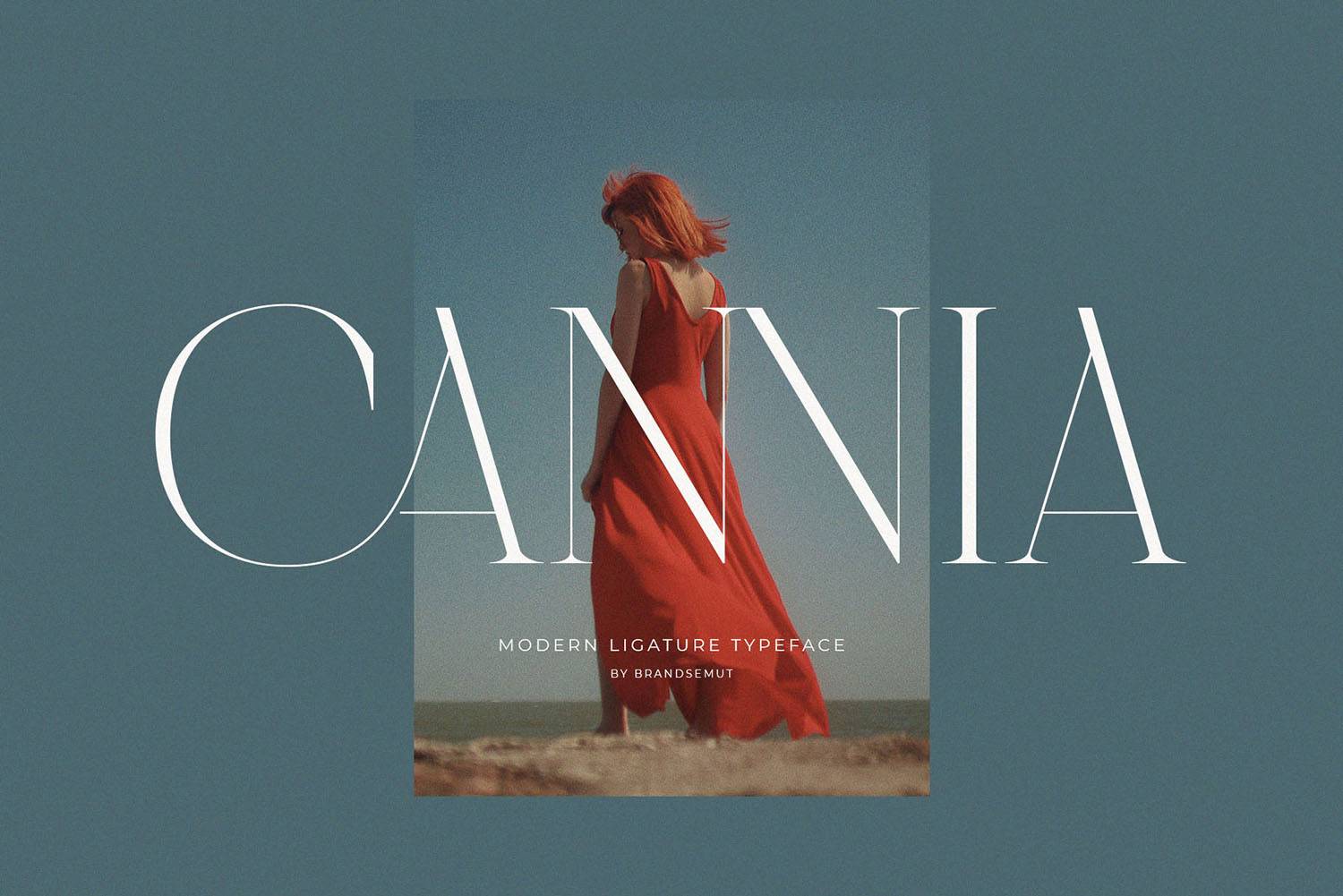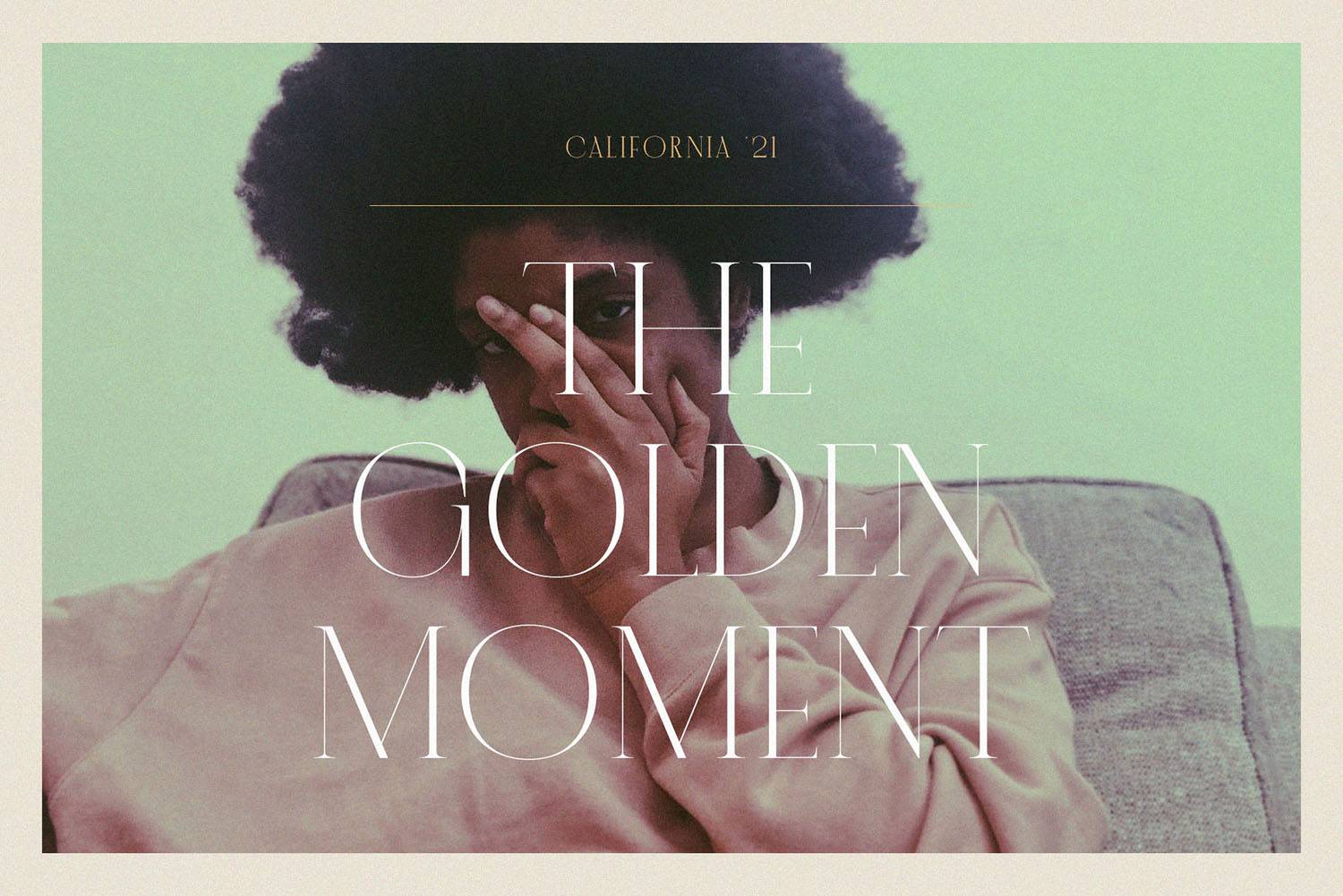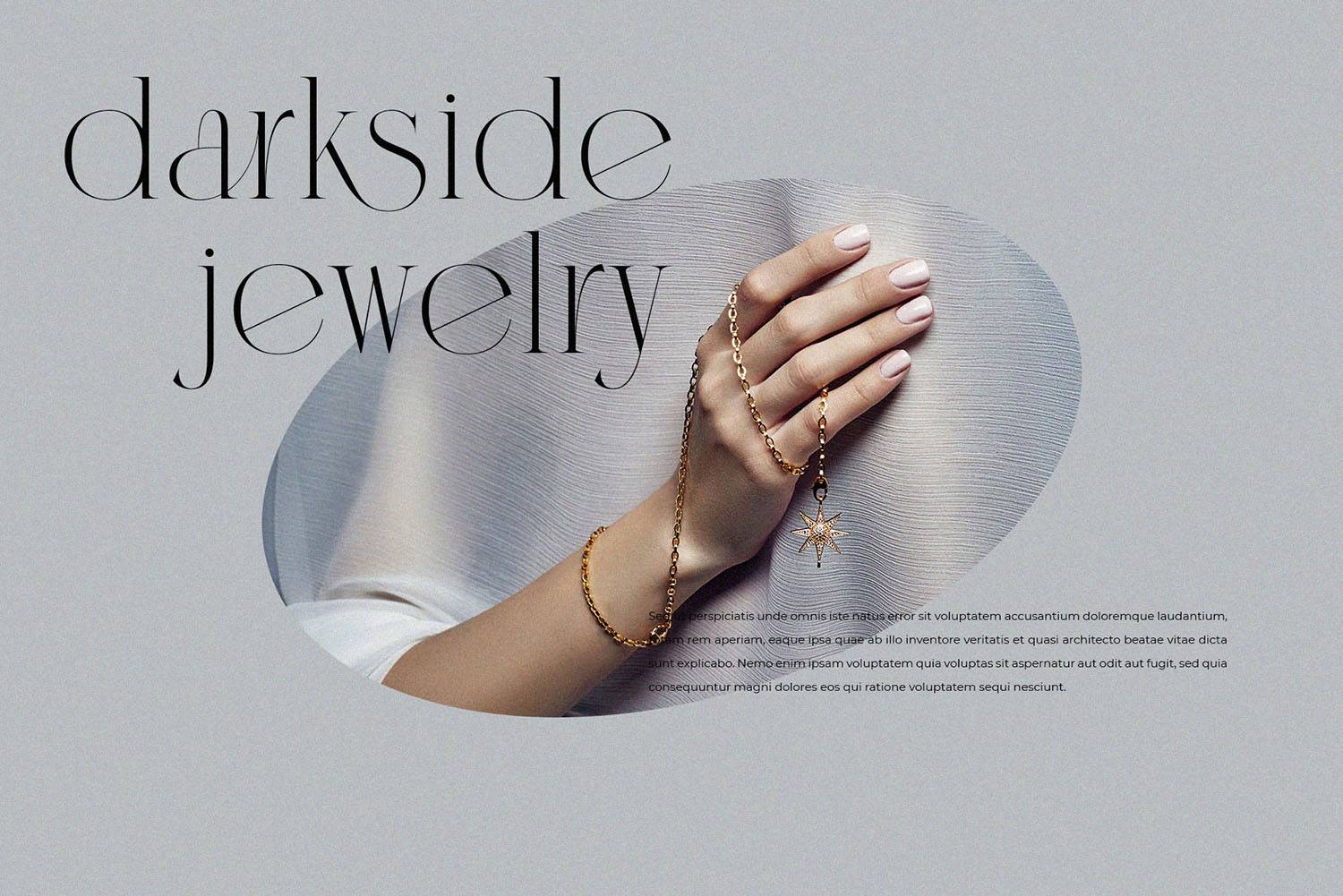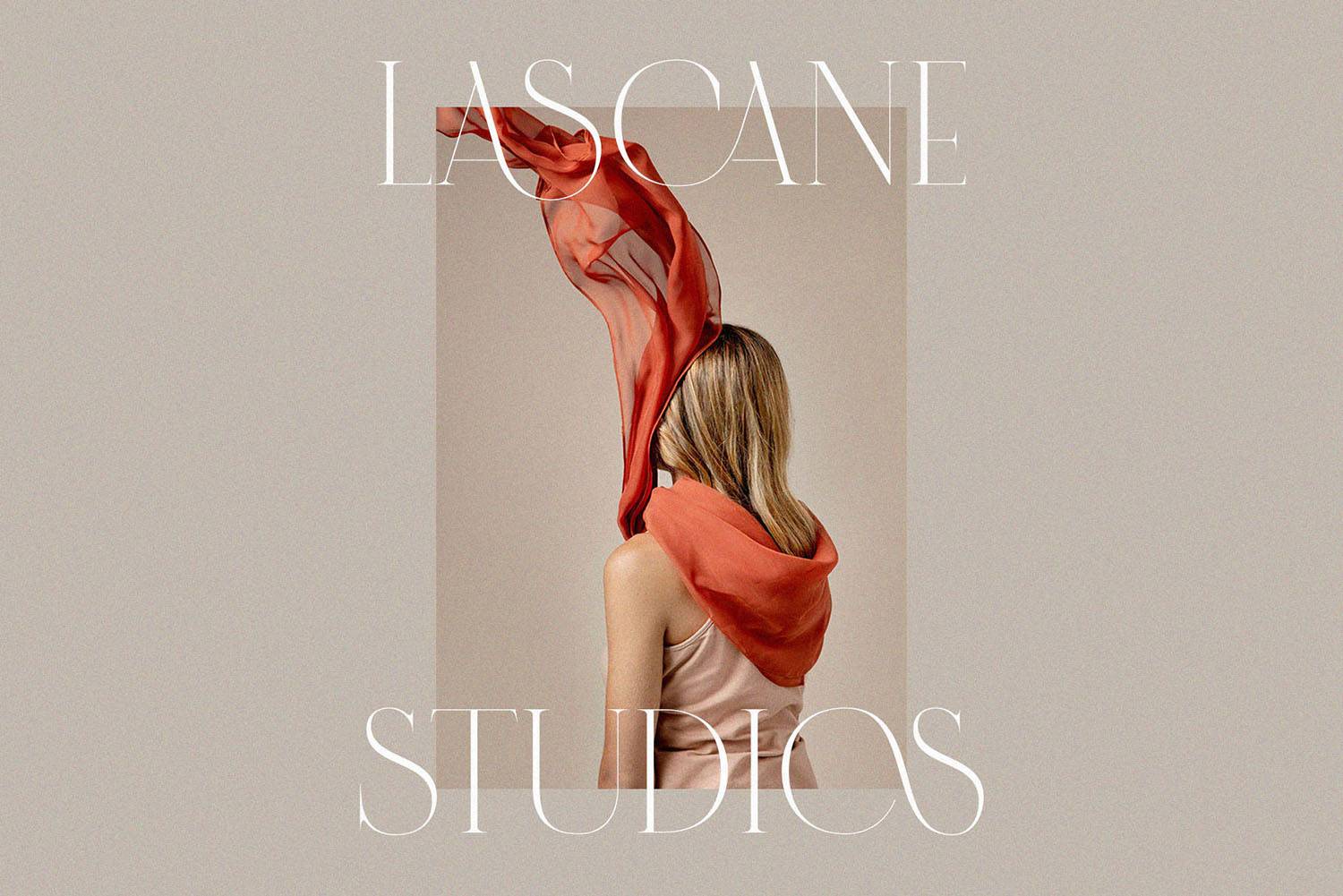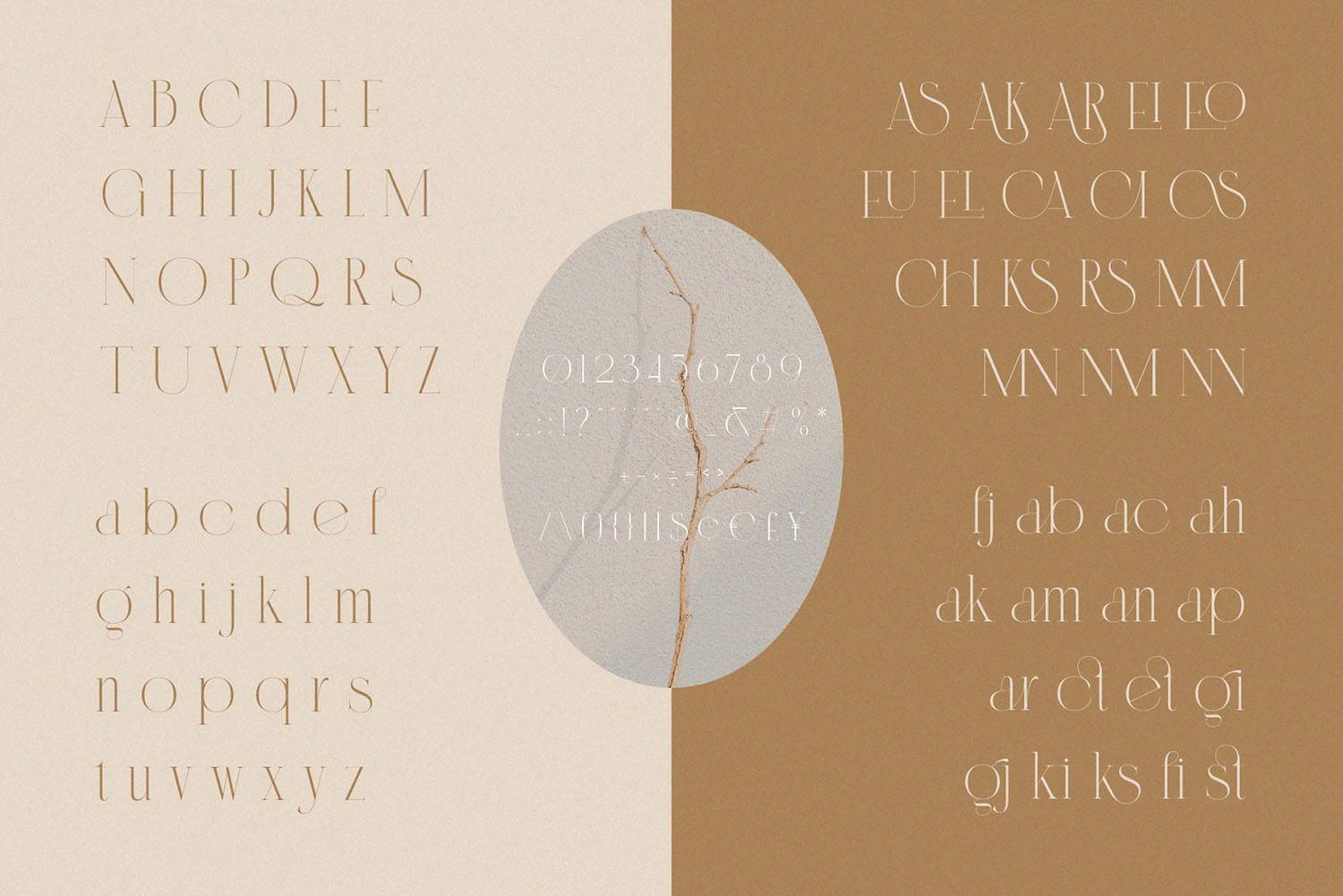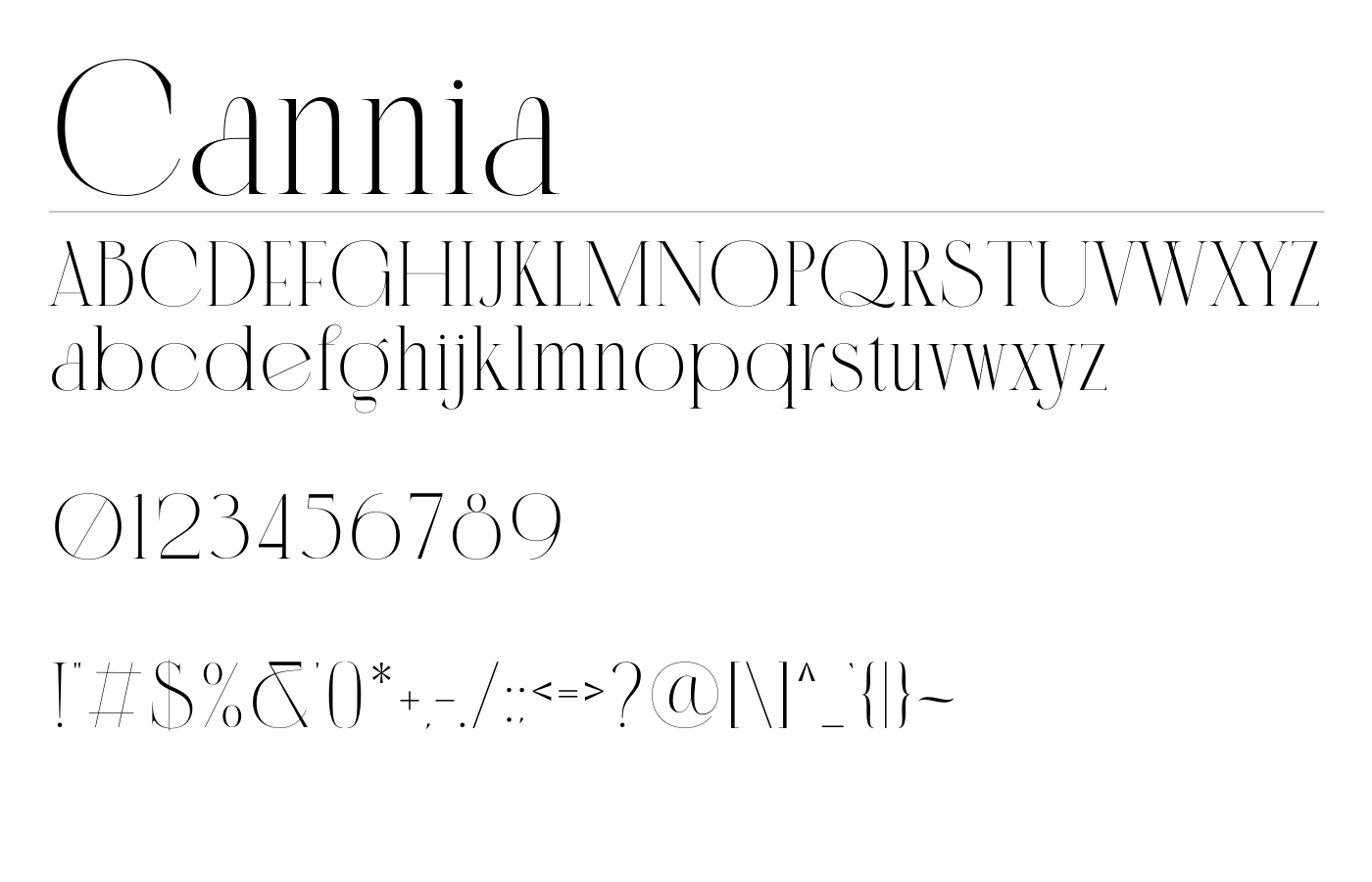
Cannia is an elegant serif font featuring a modern, high-contrast design with thin, delicate strokes and refined curves. Its tall, narrow letterforms and graceful details give it a sophisticated and luxurious feel, making it ideal for fashion brands, editorial headlines, and upscale packaging. This font works best in display settings where its stylish and airy character can truly shine.
Cannia Font
About Cannia Font
| Font family | Cannia Font |
| Designer | Brandsemut |